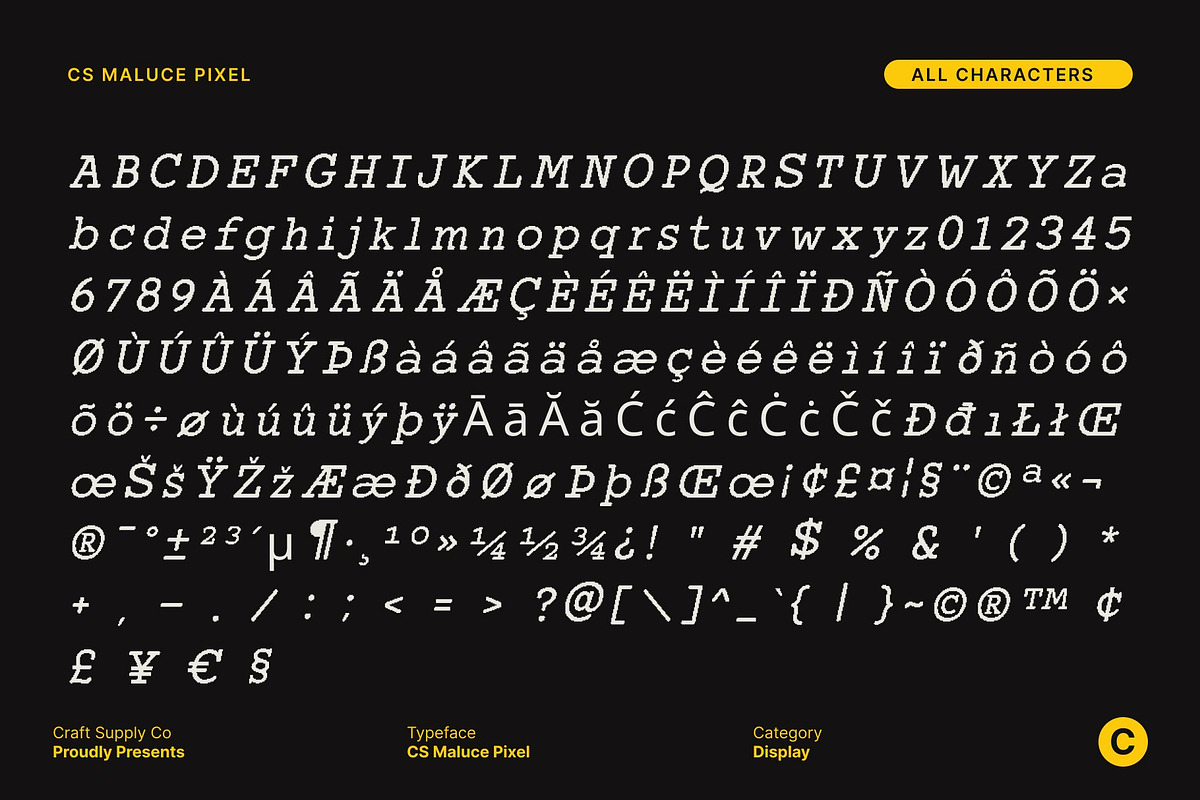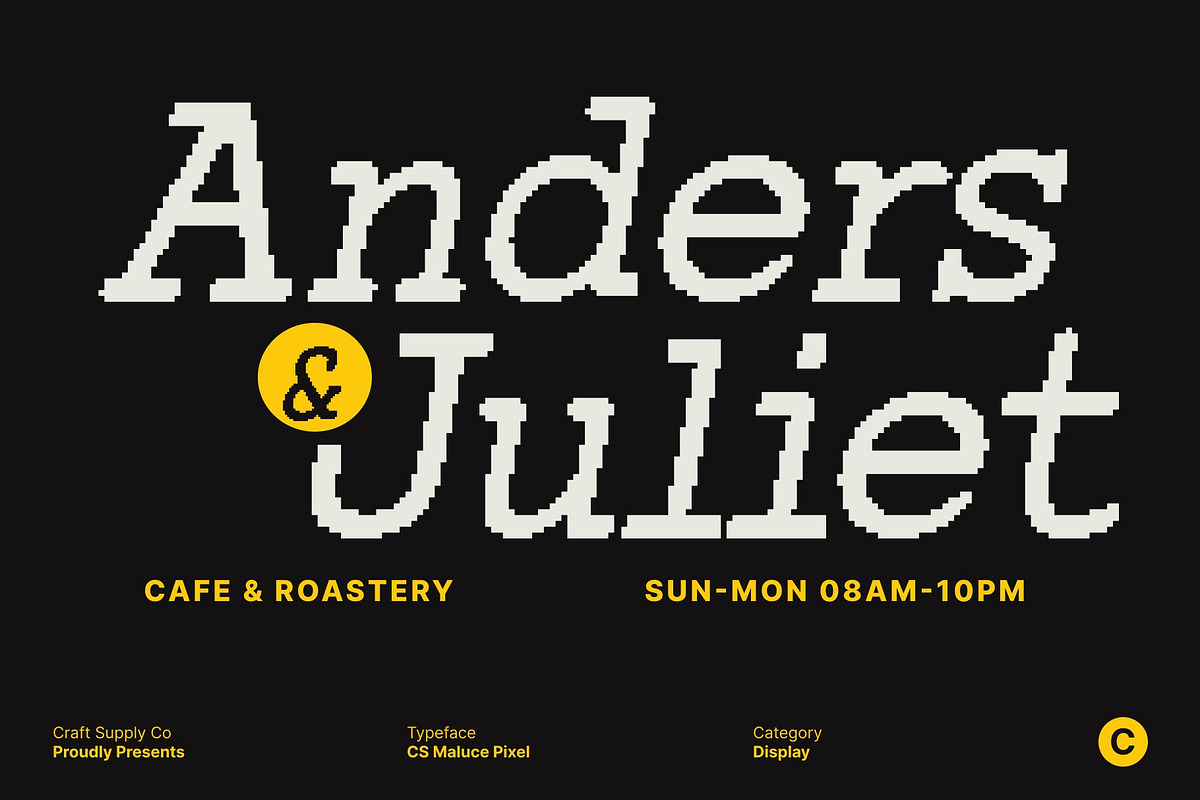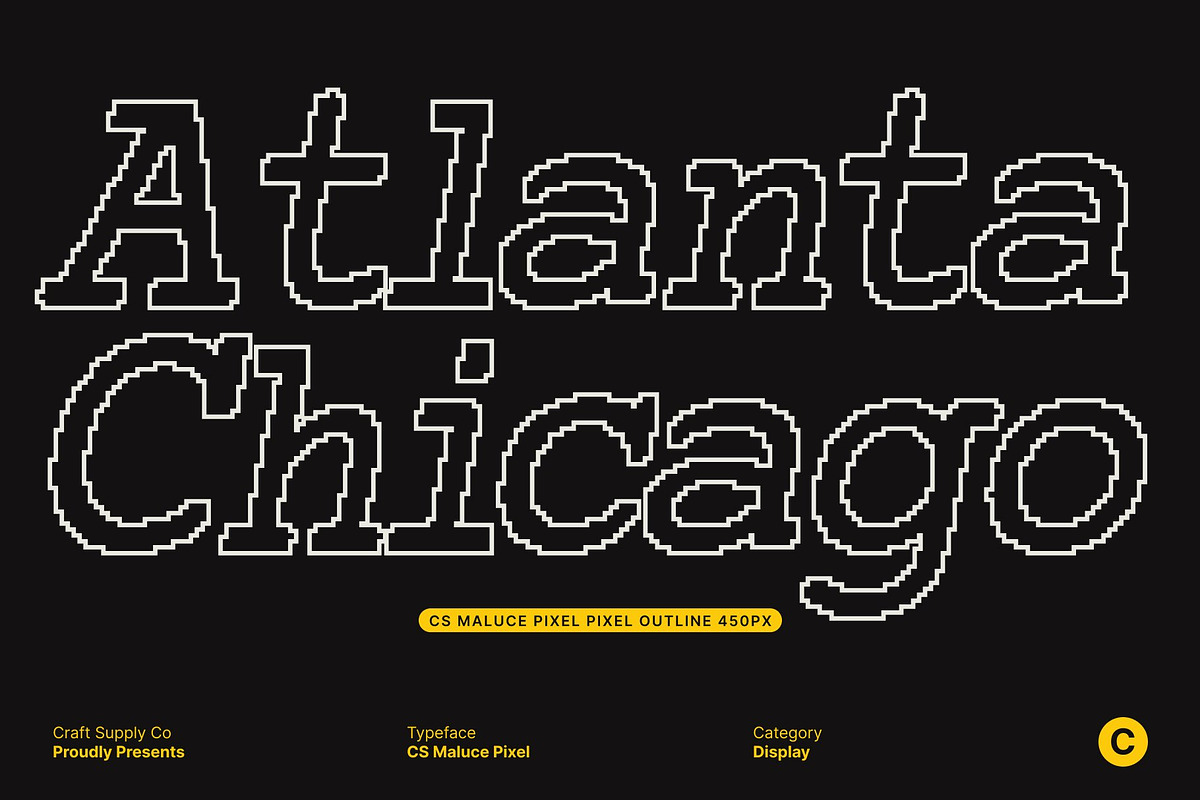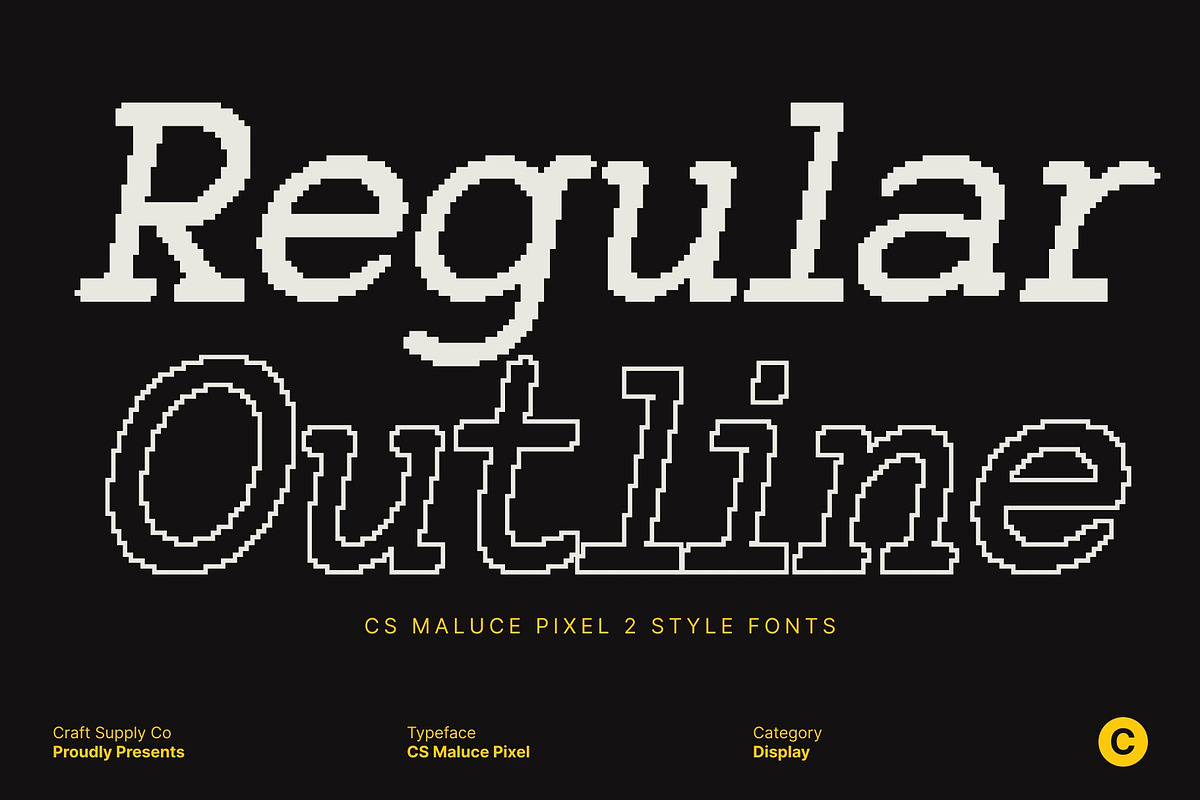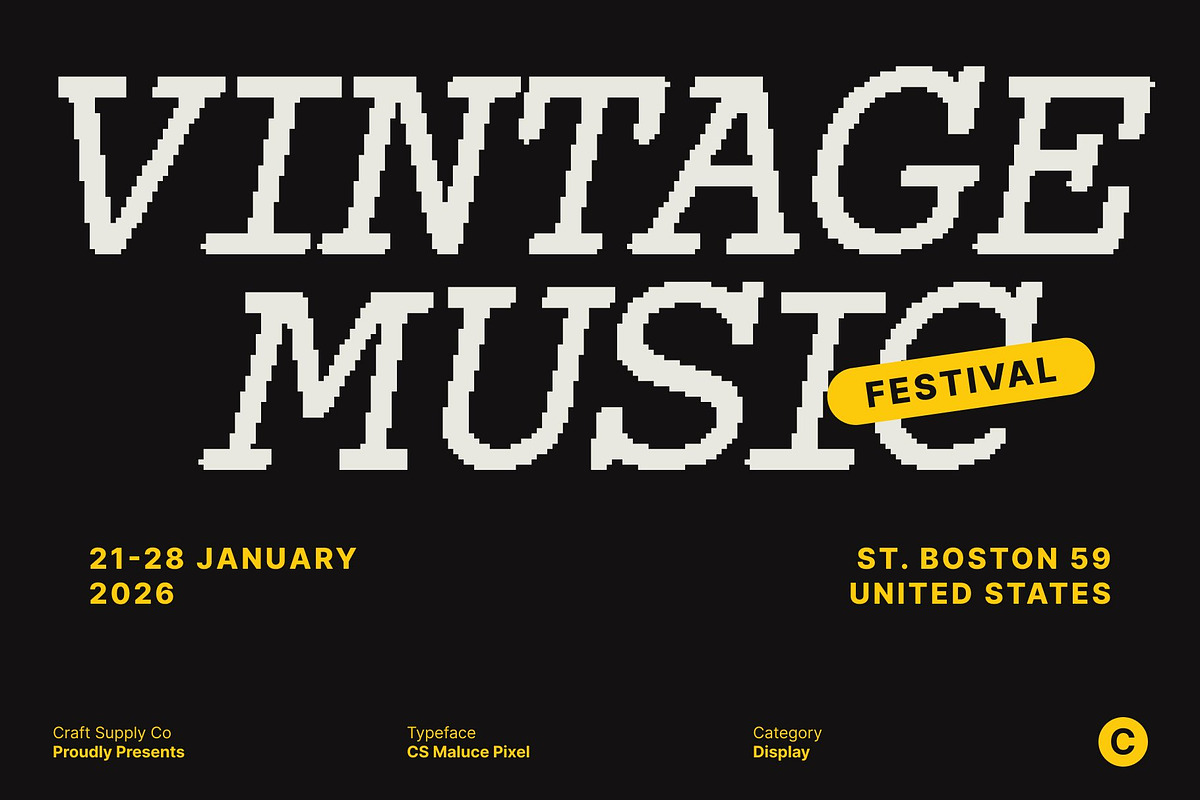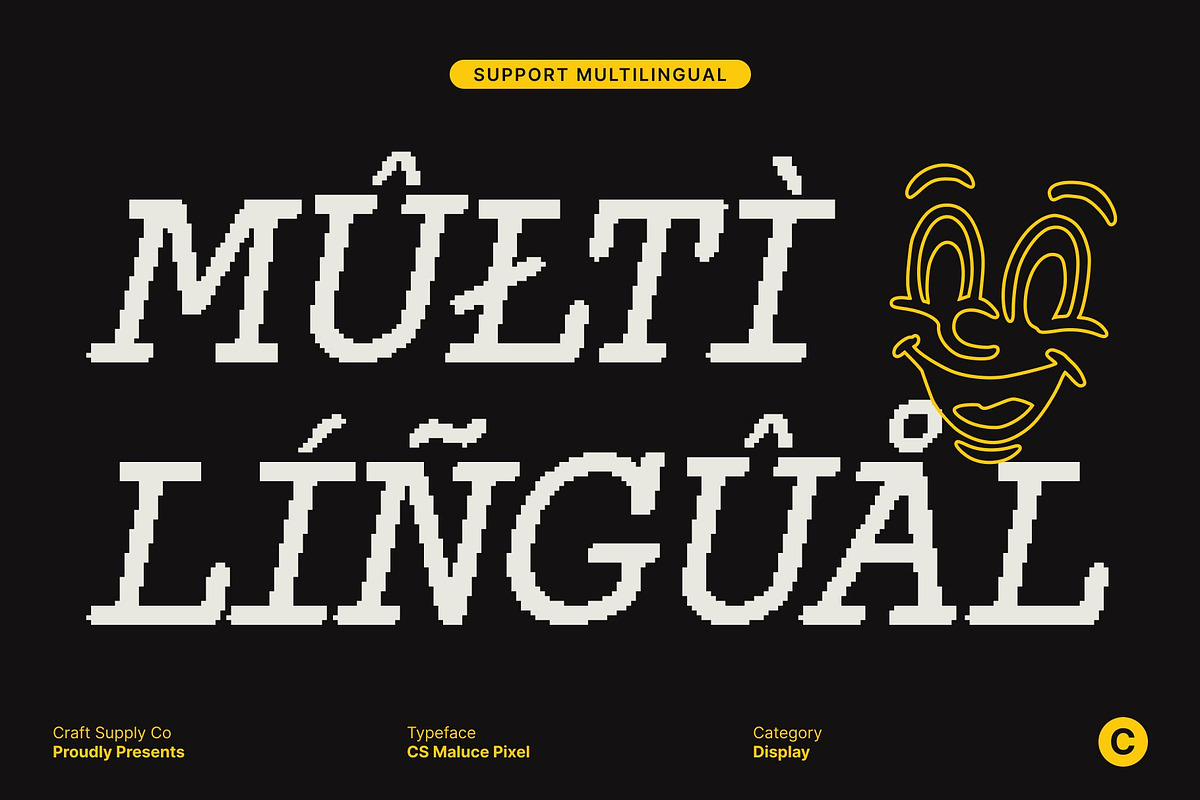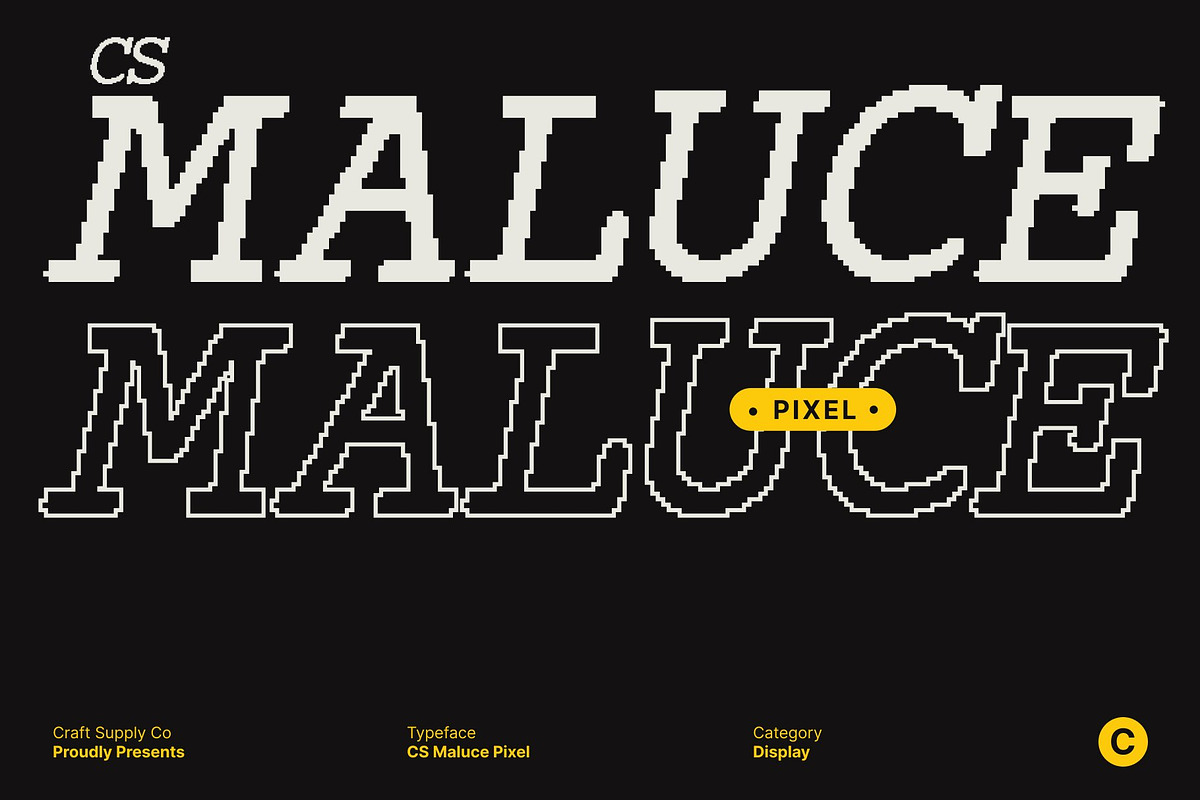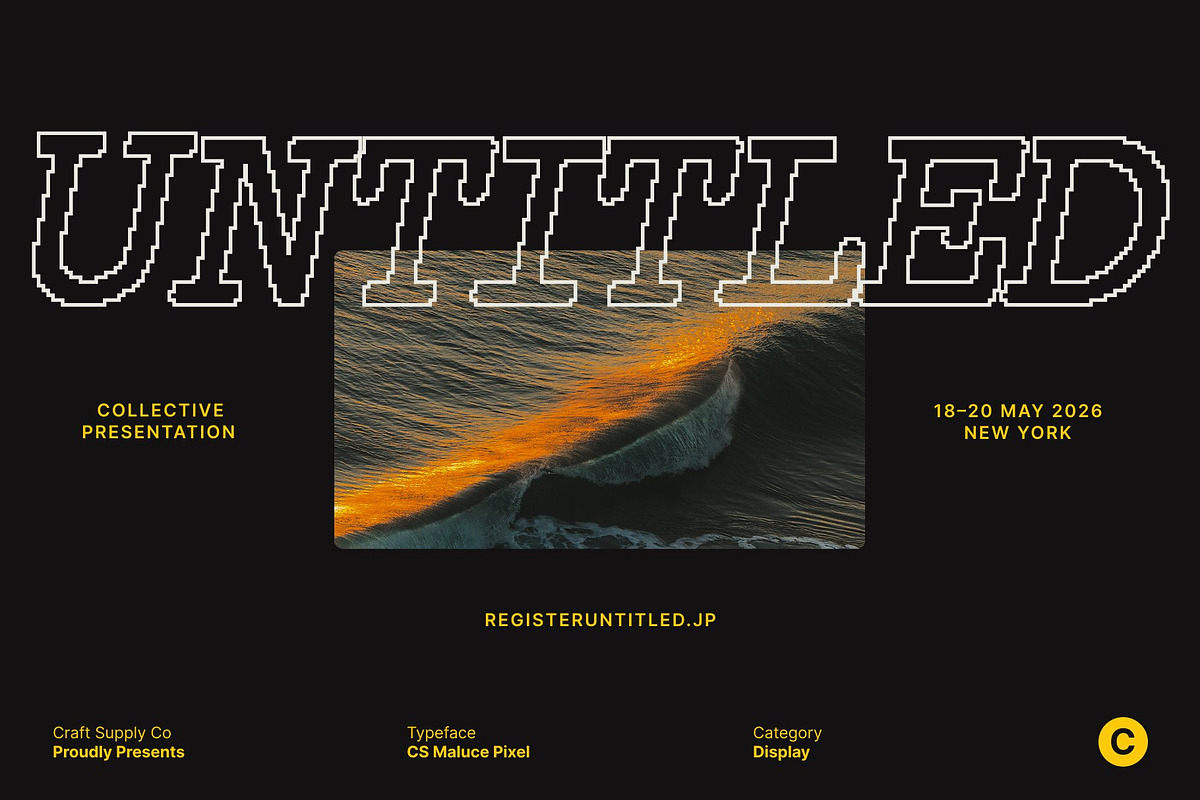
CS Maluce Pixel
CS Maluce Pixel – Rugged Slab Display with Typewriter and Pixel Charm
Slab Serif Display with Geometric Pixel Strength This is a rugged display font that fuses slab-like serifs, geometric precision, and pixel-inspired detailing. Its bold, angular forms convey confidence and durability, while the pixel aesthetic gives it a modern digital edge reminiscent of retro computer and old technology visuals.
Typewriter-Inspired Pixel Aesthetic Drawing from classic typewriters, this font retains the tactile, mechanical feel of vintage text while incorporating pixel structure for a distinctive digital personality. The result is a nostalgic yet contemporary style that works beautifully in digital displays, screens, and retro-inspired designs.
Bold, Geometric, and Digitally Eye-Catching The geometric proportions and structured slab serifs ensure clarity and rhythm across every letter. Pixel detailing adds visual texture and energy, making this font stand out in headlines, branding, posters, and any project that demands strong, readable, and attention-grabbing typography.
Perfect for Digital, Retro, and Statement Designs Ideal for classic-themed branding, retro tech projects, game interfaces, packaging, posters, or digital layouts, this font blends rugged typewriter charm with pixel-perfect style. It’s bold, stylish, and unmistakably distinctive perfect for projects that want both personality and visual impact.